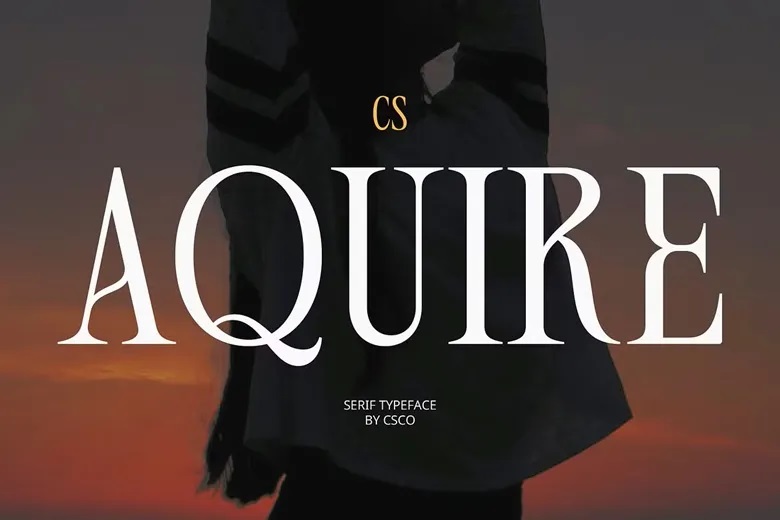
CS Aquire Font
CS Aquire is an outstanding modern serif typeface, which features long slim serifs and a neat, simple outline. Because of its focus on simplicity and proportion, the typeface still has a clean and stylish appearance while maintaining the timelessness, value, and authoritative presence of traditional serifs. The appearance it produces is modern and elegant owing to its tall and narrow characters.
The small proportions of CS Aquire enable graphic designers to improve space in layouts without sacrificing sharp and effective visuals. The font’s extended letterforms make it a perfect font to be applied in editorial works to pull the audience to headlines and logos in luxury brands where visual sophistication and legibility are required.
CS Aquire Serif Font